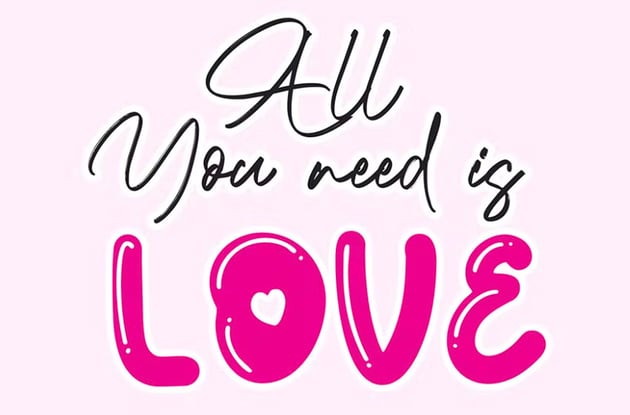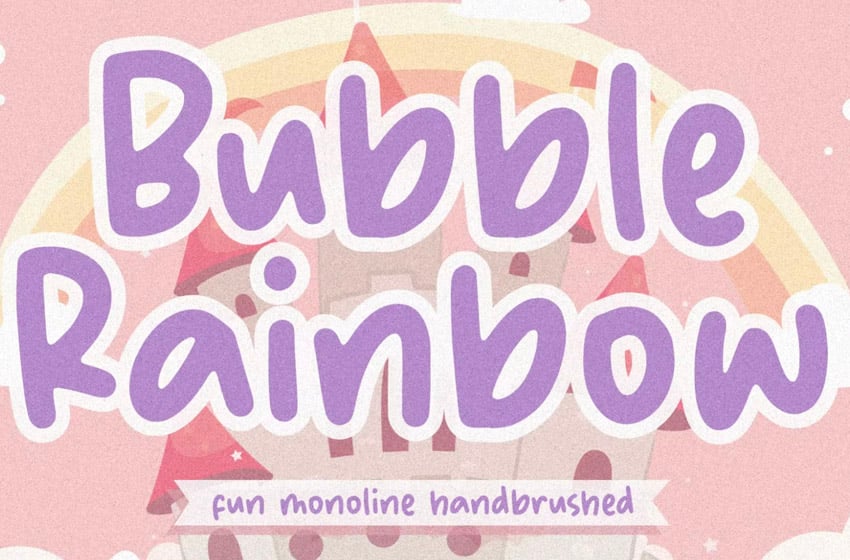
40 Best Bubble Fonts (Cool and Cute Bubble Fonts to Download)
Cute bubble letter fonts are a whimsical font style that looks like puffy air pockets or fat twisted balloons at a party.
Try fancy bubble letter fonts from Envato Elements to create a playful aesthetic, or try different bubble letter fonts to bring some fun to a school project. You may want to use cute bubble fonts to give your designs a certain relatable, informal, laid-back, and playful feel.
40 Cool Bubble Fonts to Download Today!
1. El Mojo: Bubble Pop Bold Fonts (OTF, WOFF)
El Mojo brings some Pop Art inspiration to your design. The bubble font download is perfect for logos, branding, book covers, kids' books, food and beverage posters, and ice cream branding.
2. Bubble Boom Graffiti Font (OTF, TTF)
Bubble Boom Graffiti Font grabs viewers' attention from the get-go with its fancy bubble letters. It's ideal for graffiti posters, hip-hop music album covers, kids' posters, children's books, cartoons, and more. It features multilingual accents, uppercase, lowercase, numbers, and punctuation.
3. Bulb Bubble Style Lettering Font (OTF, TTF, WOFF)
Looking for unique bubble type fonts? This decorative layered bubble font brings to mind old-school comic posters. It has over 170 characters and works with almost 100 languages. It is suited for logos, labels, T-shirt prints, product packaging, invitations, and advertising.
4. Urban Blocker: Bubble Graffiti Font (OTF, TTF, WOFF)
Urban Blocker is a fun, multilingual, and imaginative bubble graffiti font that will make headings stand out in any language. It includes standard ligatures, numerals, and punctuation to create gorgeous T-shirts, quotes, logos, menus, and social media graphics.
5. BLUM Cute Bubble Font (OTF, TTF, EOT, SVG, WOFF, WOFF2)
This cute bubble font includes desktop fonts, web fonts, over 200 glyphs, and language support that you need to create powerful logos, graphics, and promotional content. It's a complete bubble font download. The font is single-weight with normal and italic variants.
6. Lizadah Bubble Font (OTF, TTF, WOFF)
When it comes to children's activities and school projects, you can't go wrong with this cute bubble font.
7. Balloo Handwritten Bubble Font (OTF, TTF)
This bold and fun handwritten bubble font includes full sets of punctuation, numerals, ligatures, and multilingual characters. Its versatility makes it perfect for a wide variety of design projects like T-shirts, branding, eBooks, invitations, packaging, websites, and more.
8. Bubble Mint Fun Bubble Letters Font (OTF, TTF, WOFF)
Swag can also be cute, fun, and bubbly. Just try this bubble cool font and see how your social media posts, packaging, logos, and birthday cards will stand out. It includes uppercase, lowercase, numerals, symbols, ligatures, and multilingual support.
9. Sweet Bubble Font (OTF, WOFF)
With this terrific outline bubble font, your design will transmit relaxed, playful vibes that will draw your audience's attention.
10. Sugar Bubble Font (OTF)
Want to bring playfulness to your wall posters, logos, branding, and all creative projects? Why not try this charming and inspiring bubble typeface?
11. Gingies Bubble Handwriting Font (OTF, TTF, WOFF)
Make a strong impression with a cute, bold, and playful typeface. This handwritten fancy bubble letters font that includes basic Latin uppercase and lowercase letters, numbers, punctuation, and multilingual support.
12. Chunky Bubble Font (OTF, TTF, WOFF)
Doesn't this bubble cool font bring to mind fun, colorful landscapes of your favorite cartoon series? To help you create inspired designs, the font features numbers, symbols, ligatures, kerning, and basic Latin lowercase and uppercase letters.
13. Bubble Love Cute Bubble Letter Font (OTF, TTF, WOFF)
This clean and neat bubble letter font stands out for its simplicity. It has three styles that can be combined and includes uppercase letters, lowercase letters, numbers, punctuation, and multilingual support.
14. Twice Bubble Logotype Font (OTF)
Want your graphics, logos, and branding to look wild and effortless? This bubble font comes with alternative ligatures and international glyphs to help you achieve that.
15. Black Bubbles Decorative Font (OTF, TTF)
This decorative bubble letter font is a great choice for greeting cards, posters, business cards, and posters.
16. Bubble Shine Fancy Artsy Bubble Letters (OTF, TTF, WOFF, WOFF2)
Choose this playful display font for a fresh look that gives a cool shine to children's projects. The different bubble fonts include uppercase and lowercase letters, numbering, punctuation, and multilingual support.